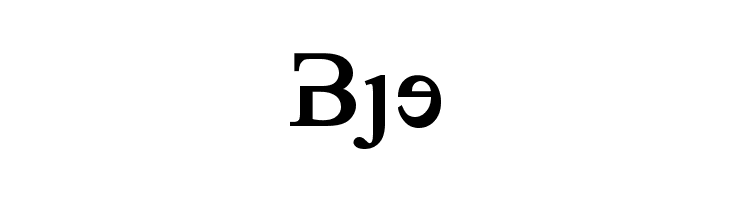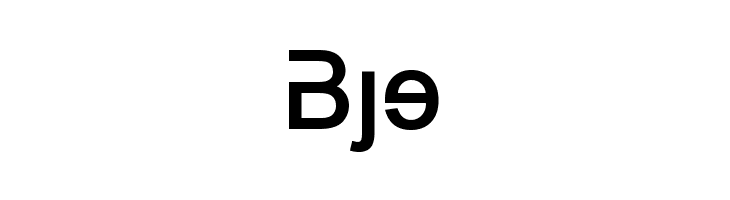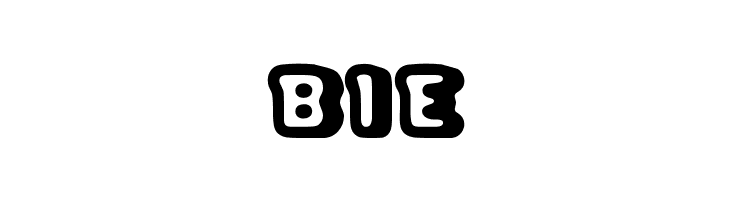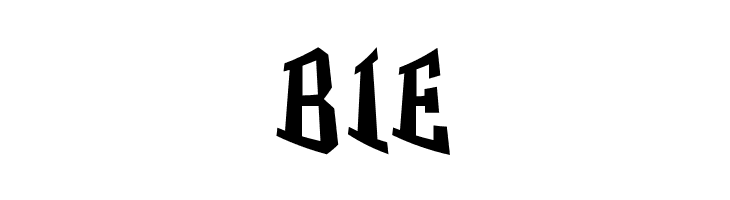
A bold, playful handwritten font with thick strokes and lively shapes.
A bold, rounded font with a playful and whimsical style.
A bold, playful font with rounded, outlined characters and a whimsical style.
A bold, brush-style handwritten font with an expressive and artistic flair.
An elegant, cursive font with intricate swirls and flourishes.
A classic serif font with a formal and elegant style.
A casual handwritten font with smooth, flowing curves and a friendly appearance.
A bold, angular font with a modern, edgy style.